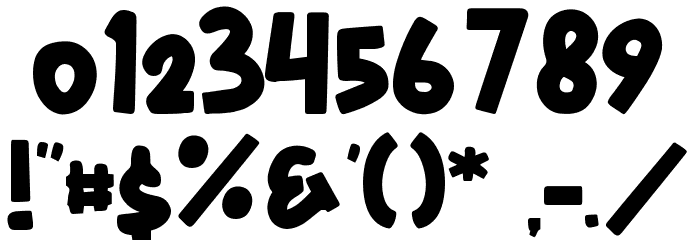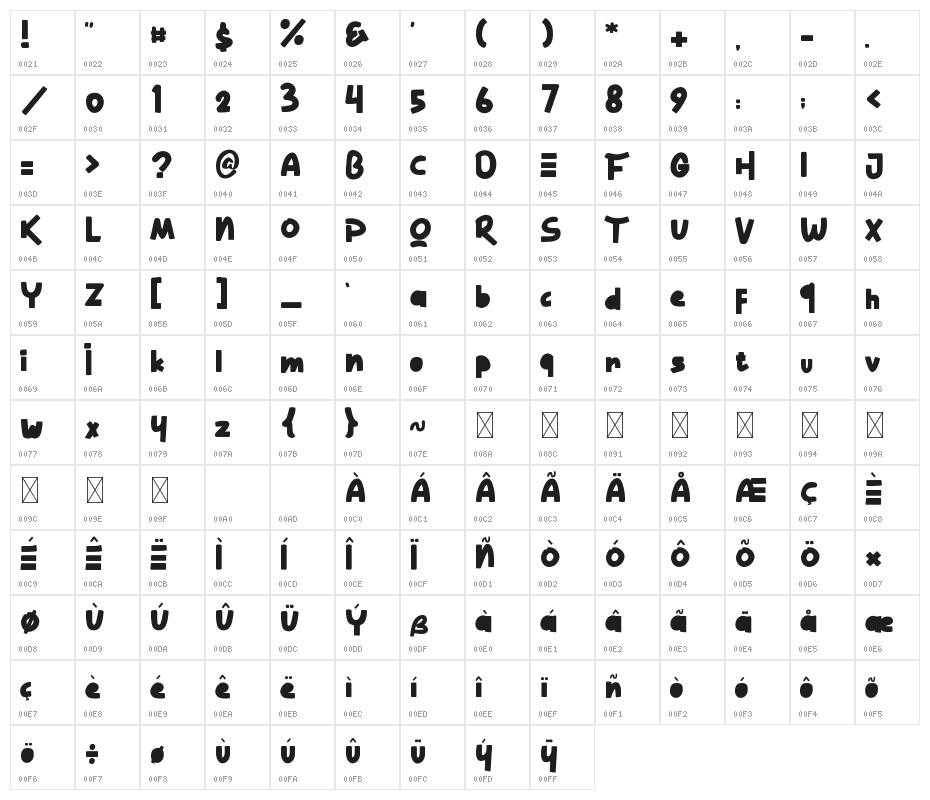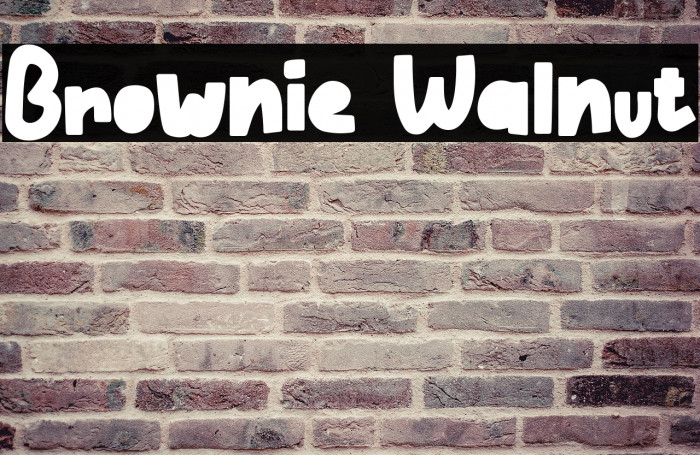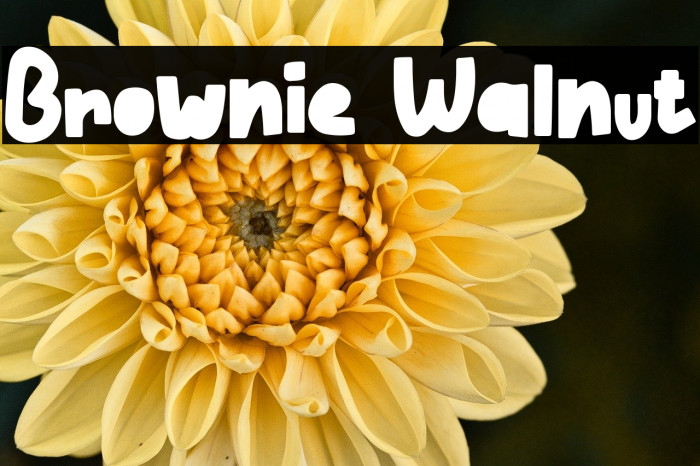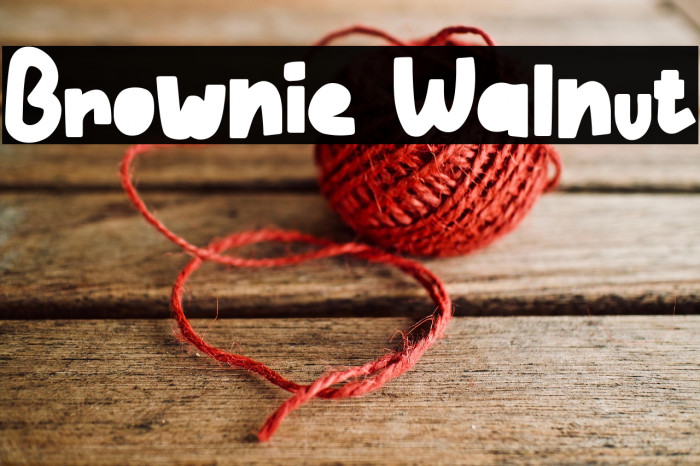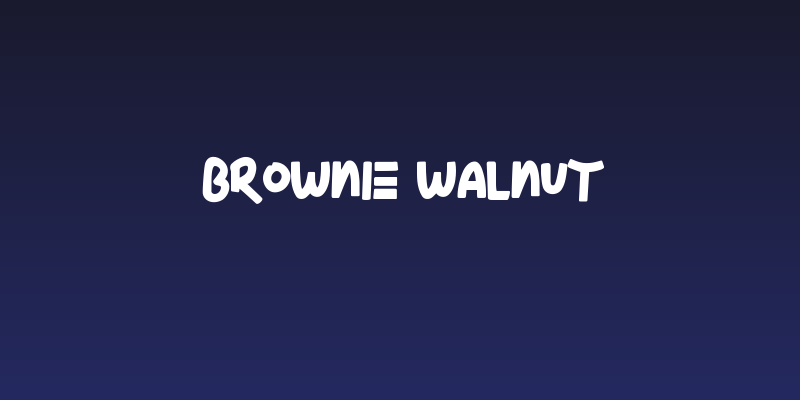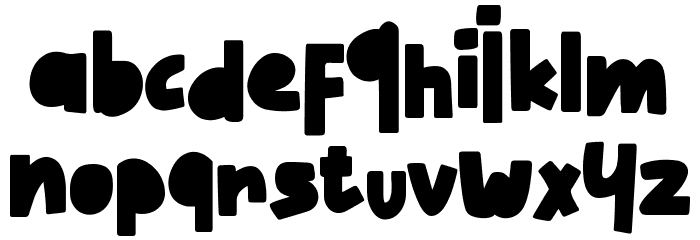
Brownie Walnut Font
Brownie Walnut Description
This playful and bold font features thick, rounded characters with a whimsical and cartoonish style. The uppercase and lowercase letters are consistent in their bubbly appearance, creating a sense of fun and creativity. The numbers and special characters maintain the same playful aesthetic, making them suitable for a variety of informal and entertaining contexts. The font's unique style is characterized by its exaggerated curves and slightly uneven lines, giving it a hand-drawn feel. It's perfect for projects that require a touch of humor and lightheartedness.
| Proposed Projects | Ideal for children's books, comic strips, playful branding, and party invitations. |